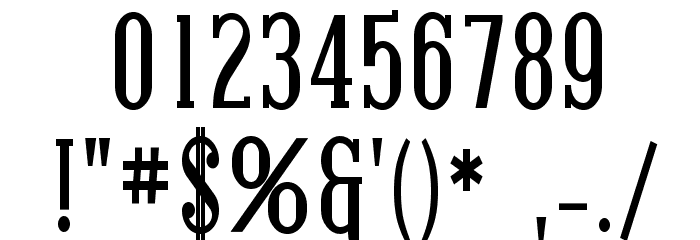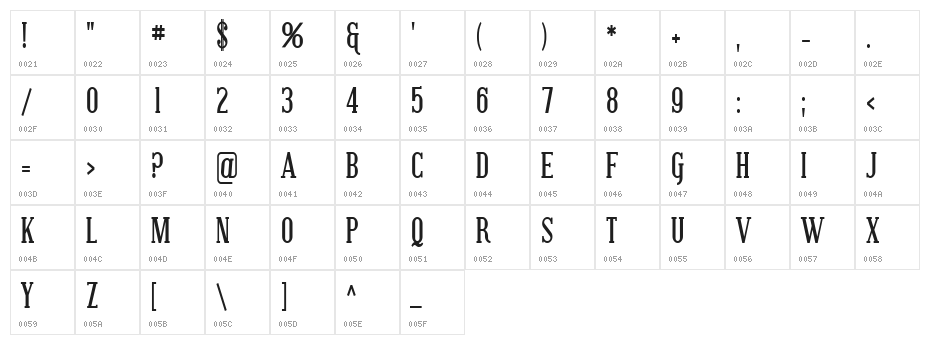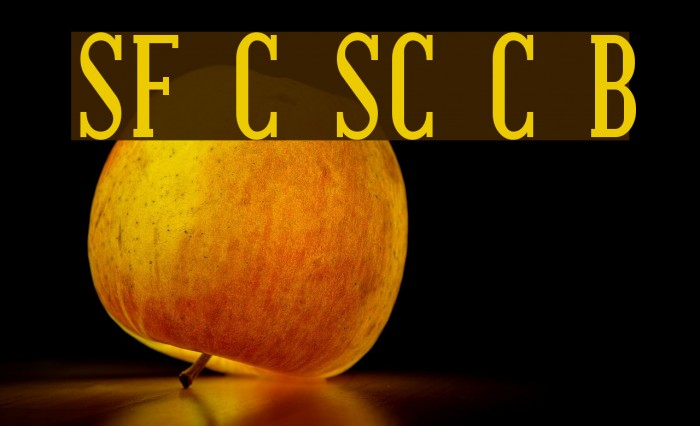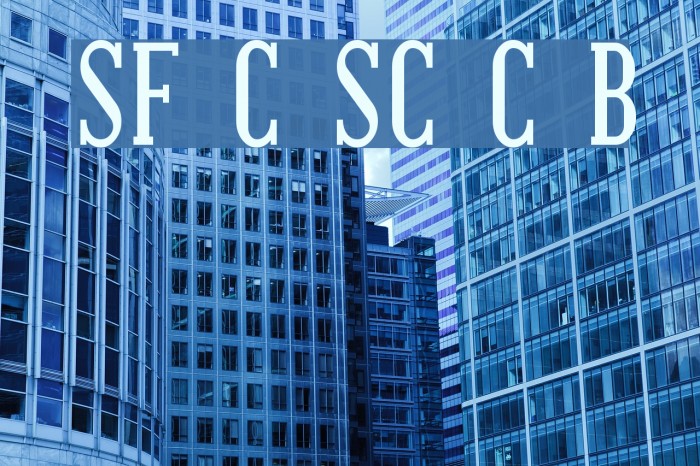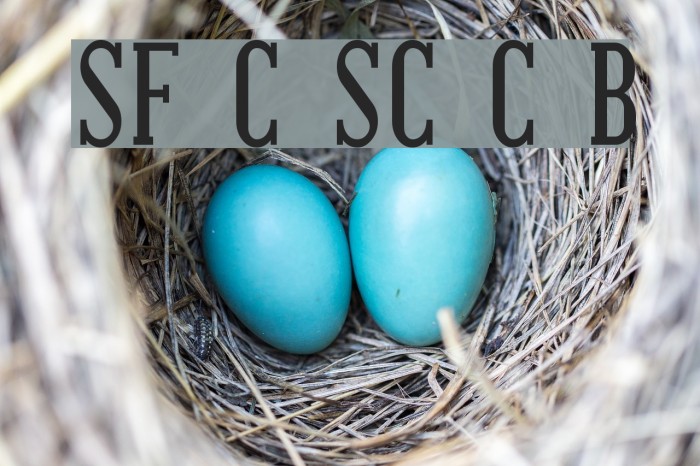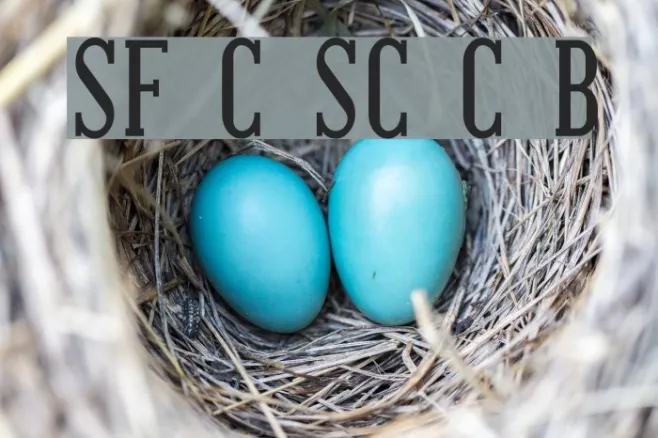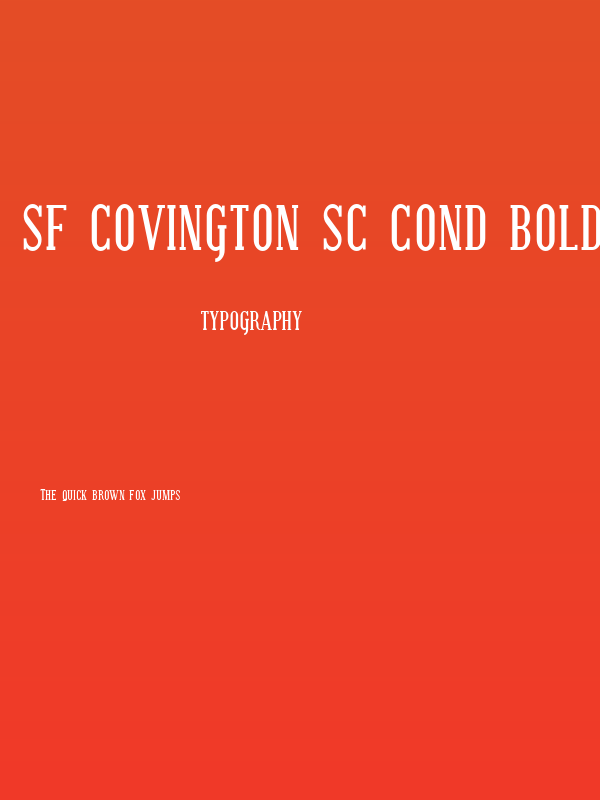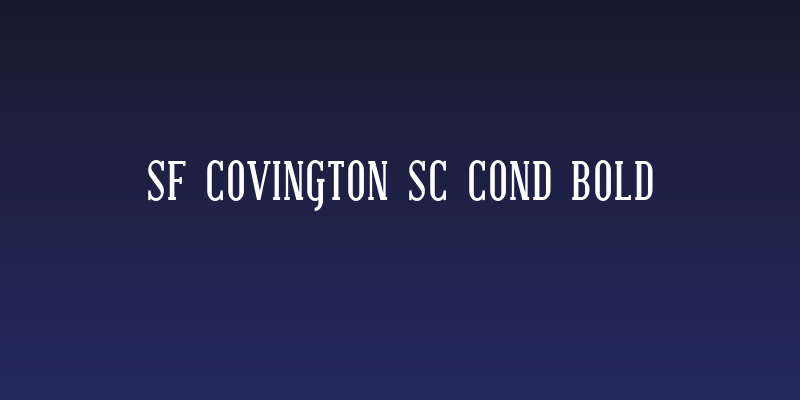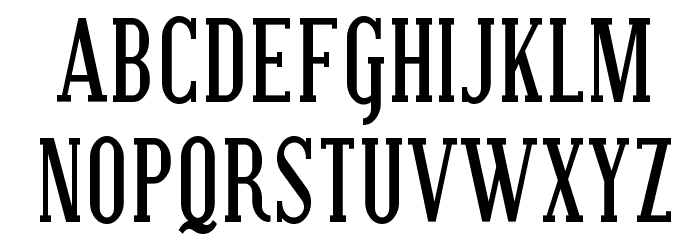
SF Covington SC Cond Bold Font
SF Covington SC Cond Bold Description
This typeface features a bold and condensed style with a strong presence. The characters are tall and narrow, creating a compact look that is both modern and classic. The serifs are pronounced, adding a touch of elegance and sophistication. The uppercase and lowercase letters maintain a consistent height, while the numbers are clear and legible. Special characters are well-defined, making this font versatile for various uses. The overall design is clean and structured, making it suitable for impactful headlines and titles.
| Proposed Projects | Ideal for branding, editorial design, posters, and advertising where a strong and elegant typeface is needed. |